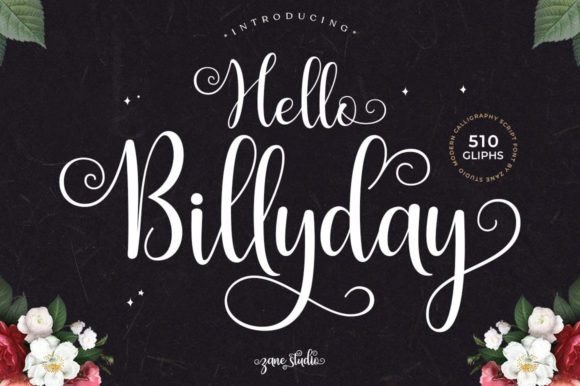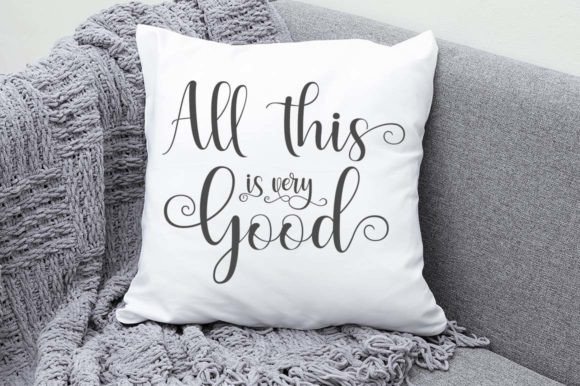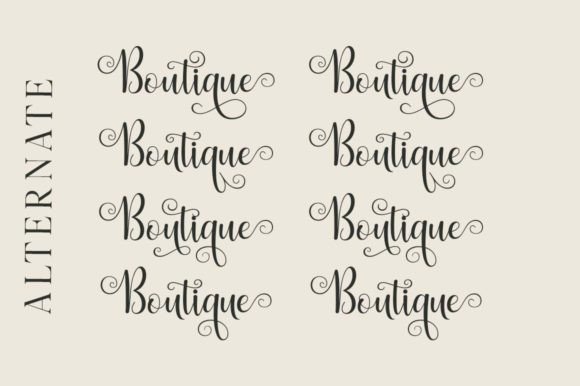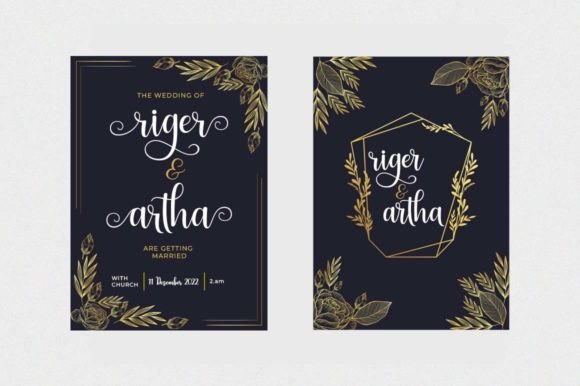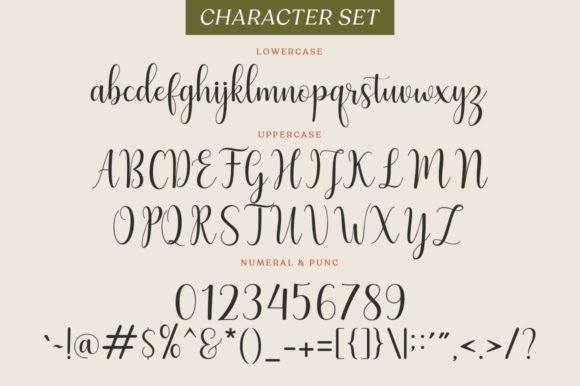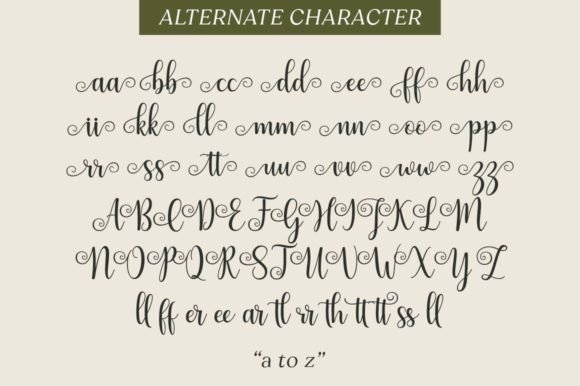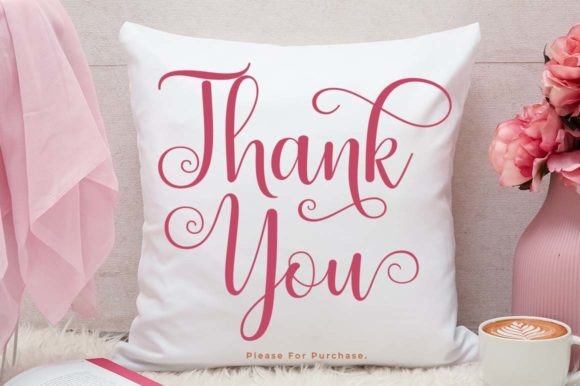
Hello Billyday Font
About Hello Billyday Font
Hello Billyday font is a romantic, elegant, and fun script typeface that adds a sophisticated yet playful touch to any design. When you download Hello Billyday font, you gain access to a versatile script that can elevate a wide variety of projects. This font perfectly balances charm and elegance, making it ideal for creative professionals looking to bring a personal and stylish flair to their work.
Romantic and Elegant Style
Hello Billyday font stands out for its romantic appeal and elegant strokes. It features smooth, flowing lines that create a graceful and inviting look. This font works wonderfully in designs where a soft, sophisticated feel is required, such as wedding invitations and letterheads. Download Hello Billydayfont to add this timeless elegance to your projects.
Versatile Usage Across Designs
This font is suitable for numerous creative applications. You can use Hello Billydayfont for logos, branding projects, t-shirts, signage, posters, badges, and more. Whether designing for commercial purposes or personal projects, downloading Hello Billydayfont will ensure your work has a polished and cohesive appearance.
PUA Encoded for Easy Access
Hello Billydayfont is PUA encoded, which means all glyphs, swashes, and stylistic alternates are easily accessible. This feature lets you customize your text with a wide range of decorative elements, enriching your designs without hassle. Download Hello Billydayfont and enjoy this added creative flexibility.